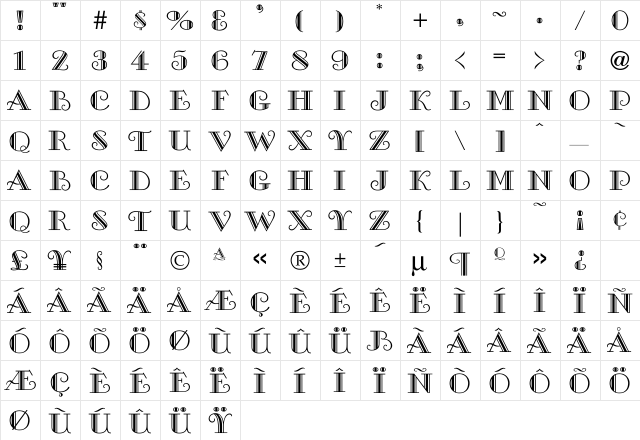
Gallary High Regular
Design Context for Gallary High Typeface
Gallary High is a composed and adaptable typeface that performs quietly and consistently across a wide range of design contexts.